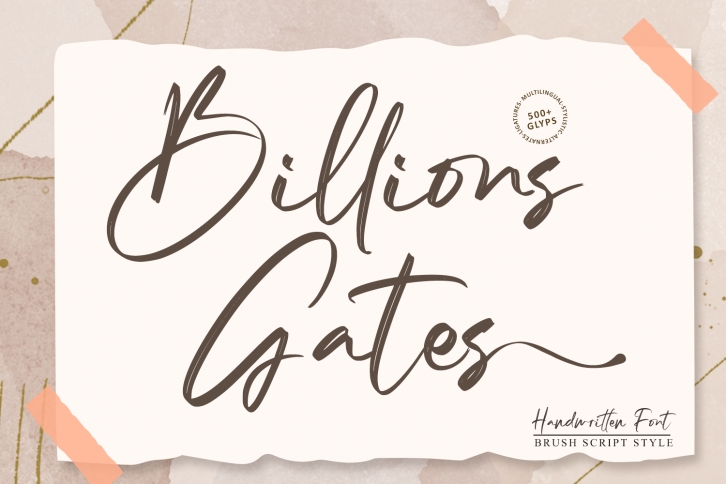
Billions Gates is a dazzling script font. This font is neatly crafted and highly detailed. Whatever the topic, Billions Gates will be a wonderful asset to your font library, as it has the potential to enhance any creation.